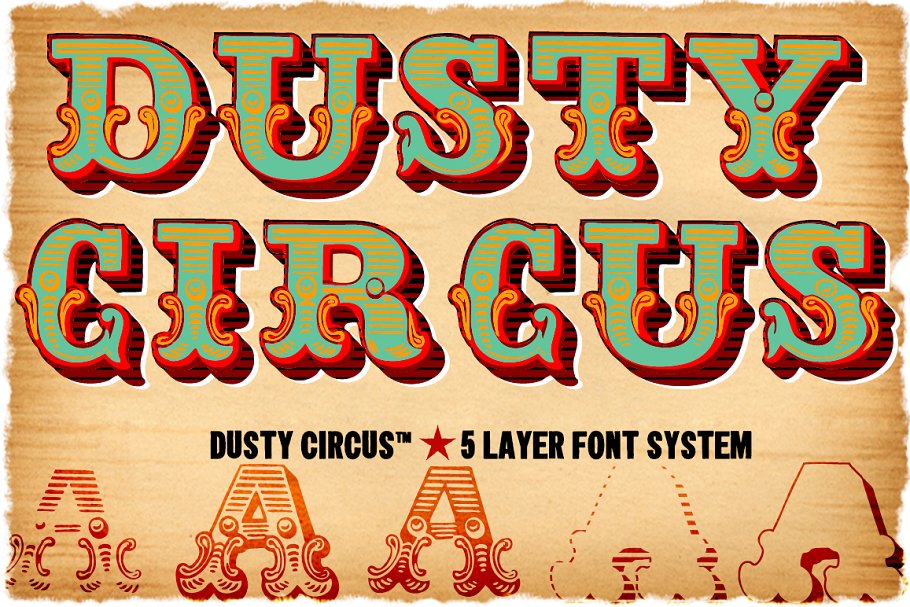
Are you tired of using the same old boring fonts? Look no further than Dusty Circus™ 5 Layer Font System, the perfect choice for those looking to add some pizzazz to their designs. Created by Nathan Williams, this font family is specifically designed for LED displays, making it ideal for those looking to add a vintage western feel or modern aesthetic to their designs.
One of the best things about Dusty Circus™ is its five-layer stacking display face, which allows for infinite morphing possibilities. And if you prefer an offset appearance, this font family has got you covered with its identically-set metrics for individual and family sets. Plus, it's incredibly easy to omit a layer and add multiple copies of other layers to produce a 3D bevel on the fly or inline styles with flair and substance.
But that's not all! If you're looking for a more stripped-down version for non-commercial use, Dusty Circus™ also offers LTD, which combines two of the layers with many features/glyphs removed. So what are you waiting for? Add some personality and style to your designs with Dusty Circus™ 5 Layer Font System today.